You’ve spent hours on a design, and something still feels off. The font. It’s too clean, too digital, too obviously computer-made. What you actually need is a font that looks like a real person picked up a pen and wrote it — warm, fluid, and human. Realistic handwriting fonts solve exactly that problem, and finding the right one can completely transform your work.
Whether you’re designing wedding invitations, Cricut projects, digital planners, branding materials, or social media graphics — these 9 handwriting fonts from Creative Fabrica are the real deal. No stiff letters, no robotic curves. Just beautiful, natural-looking type that feels genuinely handcrafted.
Best Realistic Handwriting Fonts for Designers in 2026
Stylish Writing Font
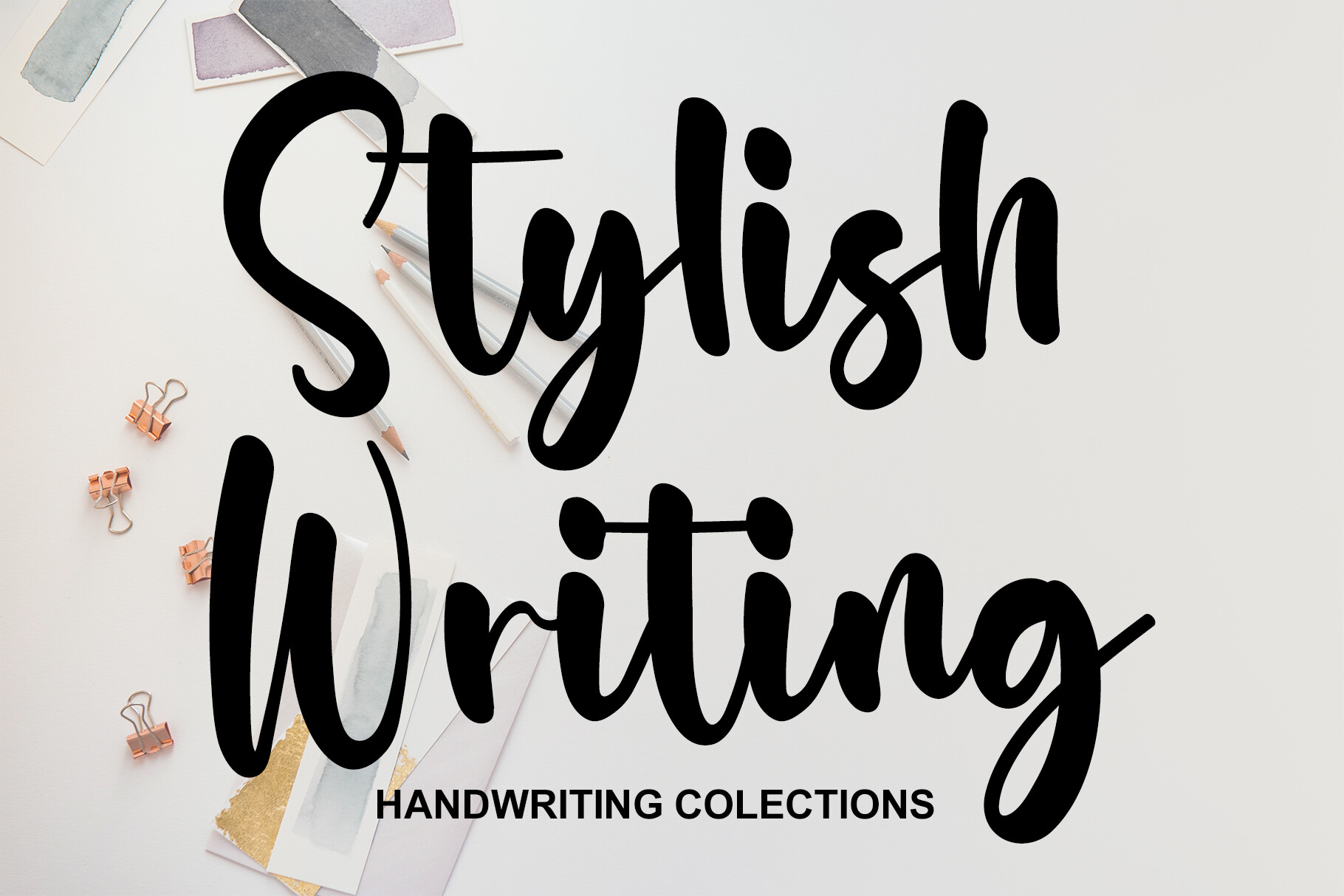
Graceful, romantic, and full of personality — Stylish Writing is a captivating handwritten script that enhances everything from wedding stationery to social media posts. Its flowing strokes and elegant swashes give every word a sense of movement and warmth that digital fonts rarely achieve.
- Includes stylistic swashes and elegant tails
- Perfect for wedding invitations, cards, and branding
- Adds a unique, personal touch to any design
Writing Font
Bold, joyful, and brimming with personality — this display handwriting font radiates a cozy, welcoming charm that’s impossible to ignore. It’s the perfect choice for emotionally resonant projects: wedding invitations that feel warm rather than formal, greeting cards that actually say something, or seasonal designs for Christmas and Thanksgiving that need that extra layer of heart.
- Expressive display font with handwritten character
- Ideal for wedding, Christmas, and Thanksgiving projects
- Works beautifully for sublimation and vintage designs
Neokid Handwriting Font
Inspired by the charming imperfection of a child’s handwritten notes, Neokid is one of the most naturally realistic handwriting fonts you’ll find anywhere. It looks exactly like pencil on paper — slightly uneven, genuinely warm, and instantly likeable. Great for quotes, posters, packaging, and anywhere you want to inject a sense of playful authenticity.
- Natural pencil-on-paper aesthetic
- Perfect for kids’ content, quotes, and social media
- Playful and funny without being childish
- Works for logos, packaging, and display text
Simple Handwriting Font
Sometimes the most powerful handwriting font is the one that gets out of the way. Simple Handwriting strikes the perfect balance between casual and professional — tall x-height, slender upright strokes, and a modern feel that makes it highly legible even at smaller sizes. It’s the go-to choice for digital planners, lifestyle journals, and minimalist branding projects.
- Tall x-height for maximum legibility in script fonts
- Ideal for planners, journals, and clean digital interfaces
- Pairs effortlessly with any serif or sans-serif font
- Includes PUA encoding for easy access to special characters
Hynings Handwriting Font
Hynings Handwriting is a creative, simple script font with uniquely well-balanced characters that feel natural and human. What makes it stand out is how versatile it is — it works in a wide pool of design contexts without ever feeling forced or out of place. Add it to your most creative ideas and watch them come alive.
- Unique, well-balanced character shapes
- Simple yet distinctive — works across many design styles
- Great for branding, social media, and creative projects
- Clean script style with artistic personality
Stylish Handwriting Font Duo
A versatile font duo that combines a modern bold display font with a sweet, authentic handwriting script featuring elegant stylistic swashes. Designed with clean lines and full OpenType support, it’s particularly well-suited for Cricut users and SVG designers — and equally at home on T-shirts, tote bags, birthday cards, and seasonal party décor.
- Font duo: bold display + handwriting script with swashes
- Full OpenType support including stylistic sets and numbers
- Perfect for Cricut, Silhouette, and SVG projects
- Great for spring, Easter, birthday, and teacher themes
Free Flow Handwriting Font
Fluid, modern, and effortlessly cool — Free Flow Handwriting captures the natural energy of a marker script without any of the digital stiffness. It’s highly versatile: equally at home on sticker designs, magazine covers, book covers, comic lettering, and logo projects. If you want a font that looks like someone actually wrote it in a single confident stroke, this is it.
- For planners and digital notebooks: Simple Handwriting is the most legible and professional
- For kids and education: Neokid or the ABCD Tracing Bundle are perfect choices